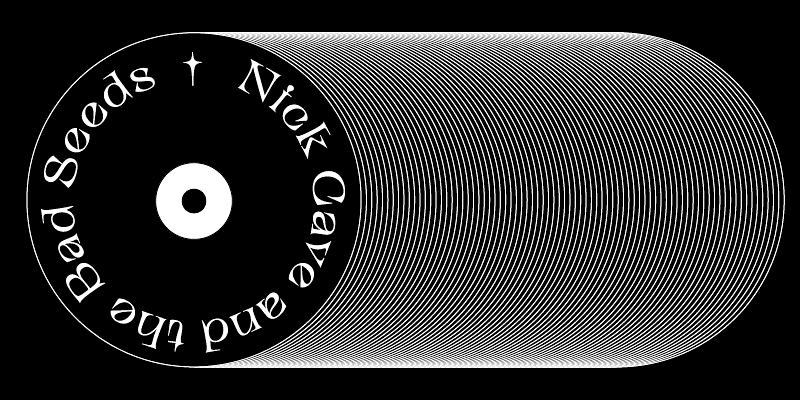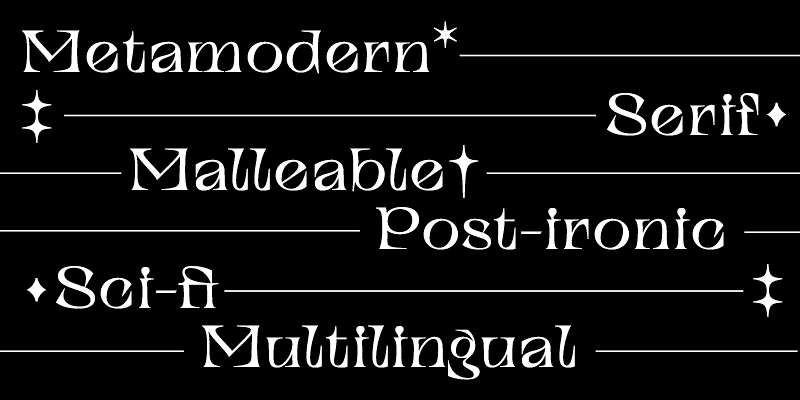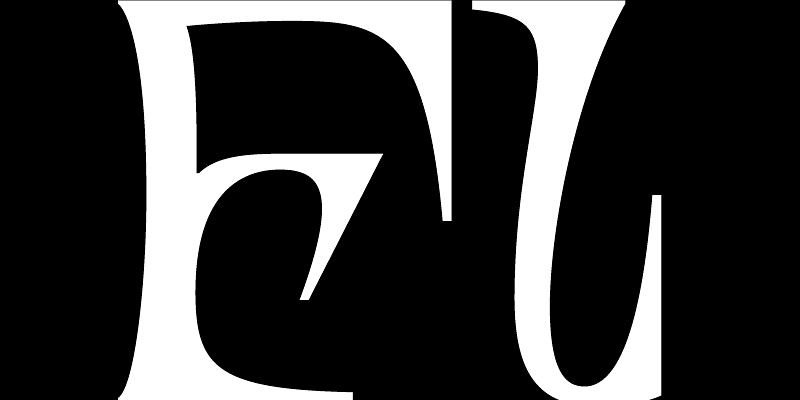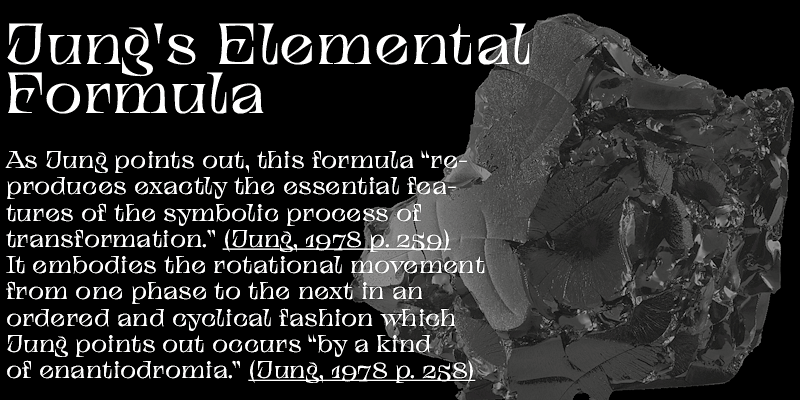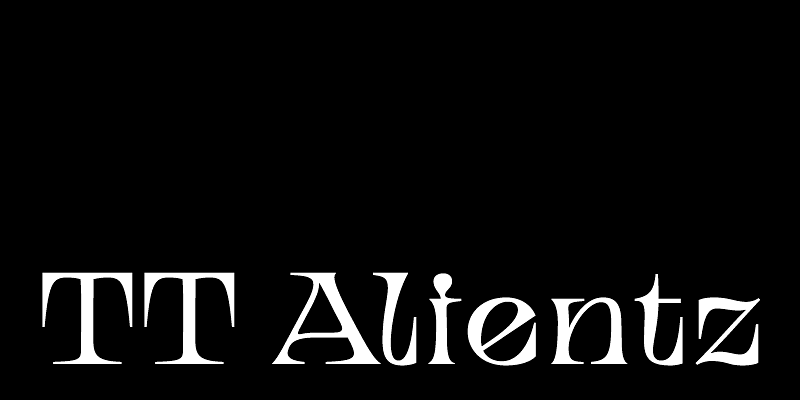
TT Alientz Serif is dynamic, viscous, ductile and very prickly display typeface. As part of this project, we decided to investigate the influence of a foreign substance and the consequent transformation of the original forms, which ultimately leads to extreme visual changes. TT Alientz Serif has a lot of smooth lines and not quite standard strokes contrast. Despite its extremeness, the serif will look good both in large and in small body sizes.